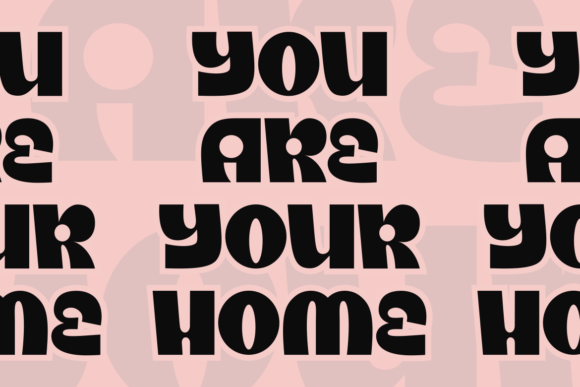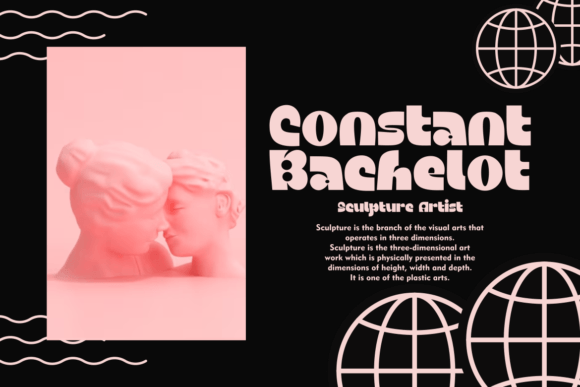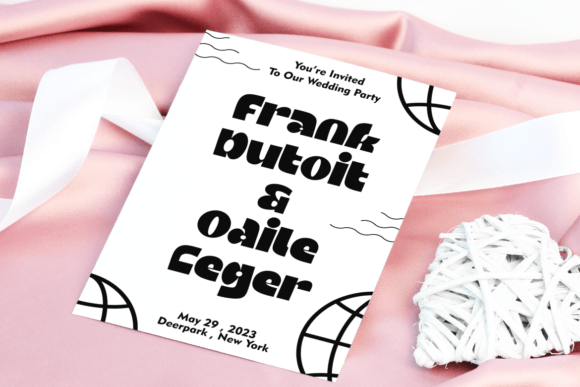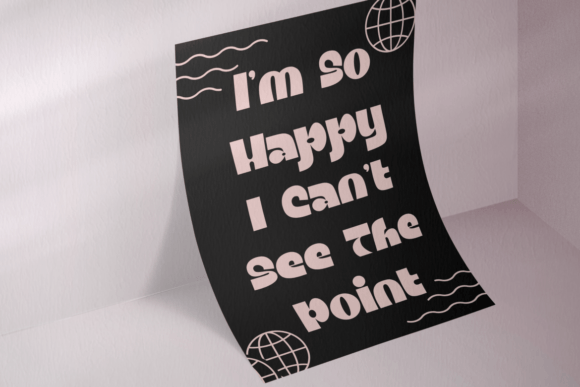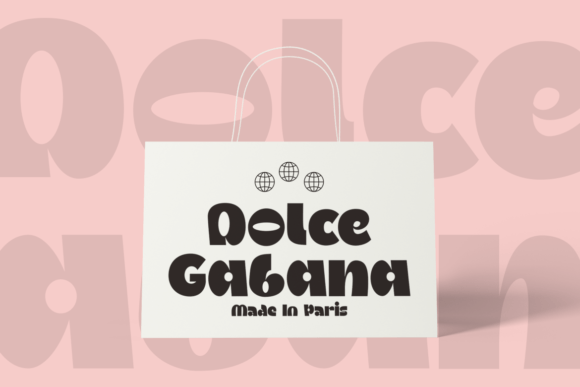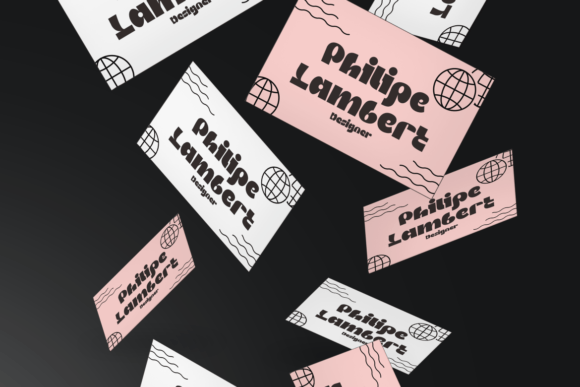
The Enjoying Typeface: A Bold and Playful Font for Creative Projects
I’ll never forget the time I was working on a logo design project for a trendy coffee shop. My client wanted a font that was bold, modern, and would stand out on their branding materials. I spent hours scouring through font libraries, but nothing seemed quite right. That was until I stumbled upon the Enjoying Typeface – Modern Display Font. Its unique twist and playful characters immediately caught my eye, and I knew I had found the perfect fit.
- ✨ **Bold and contemporary design**: The Enjoying Typeface is perfect for making a statement with your designs.
- ✅ **Two distinctive versions**: The font offers added versatility, allowing you to experiment with different styles and moods.
- 🎉 **Playful characters**: The font’s bold and playful characters make it an excellent choice for logos, quotes, posters, and more.
- 💼 **Perfect for branding**: The Enjoying Typeface is ideal for business branding, product names, and invitation cards.
While the Enjoying Typeface is an excellent font, there are a few things to keep in mind:
- 🤔 **Limited use in body text**: Due to its bold design, the Enjoying Typeface may not be the best choice for body text or long paragraphs.
- ⚠️ **Requires careful kerning**: As with any font, it’s essential to pay attention to kerning to ensure the text looks polished and professional.
The Designer Inspiration Behind the Enjoying Typeface
The Enjoying Typeface was designed with the goal of creating a bold and modern font that would stand out in a crowded design landscape. The designer, inspired by the world of art and typography, aimed to create a font that was both playful and sophisticated. With its unique twist and distinctive design, the Enjoying Typeface is sure to leave a lasting impression on your audience.
Q: What type of projects is the Enjoying Typeface best suited for?
A: The Enjoying Typeface is perfect for logos, quotes, posters, titles, headlines, magazines, business branding, product names, stickers, and invitation cards.